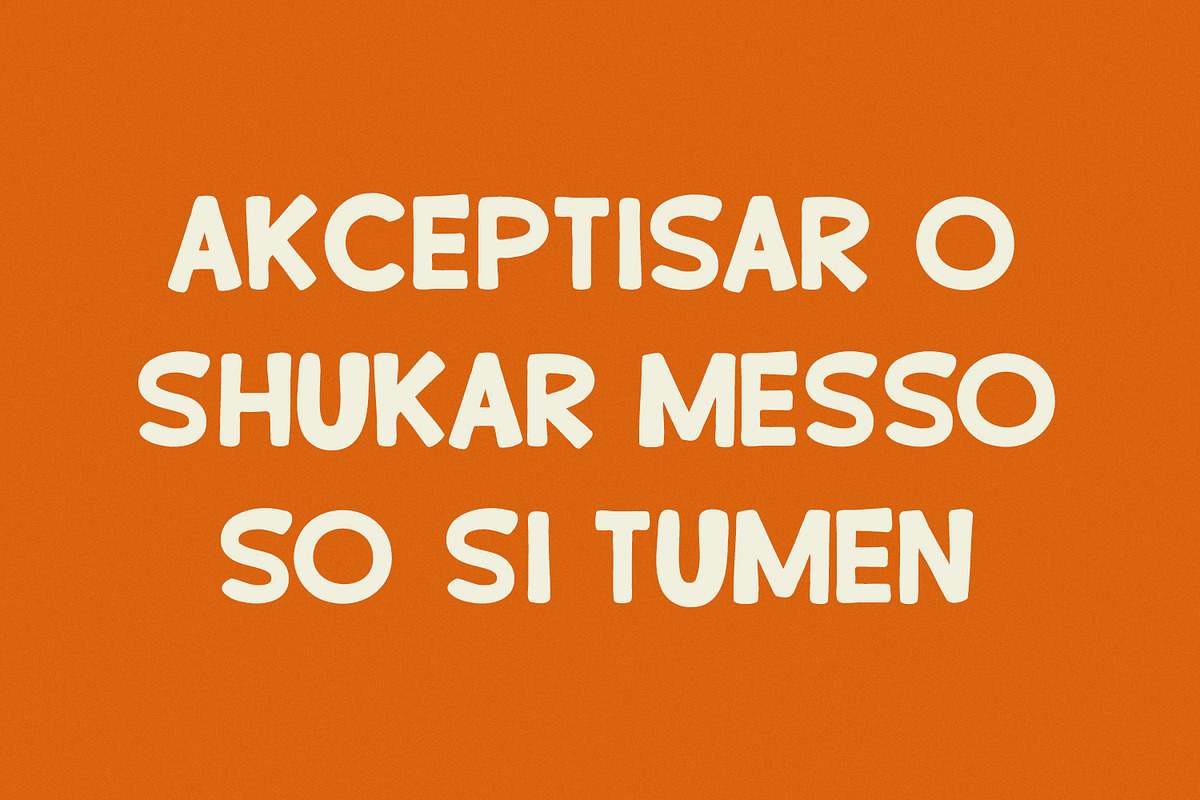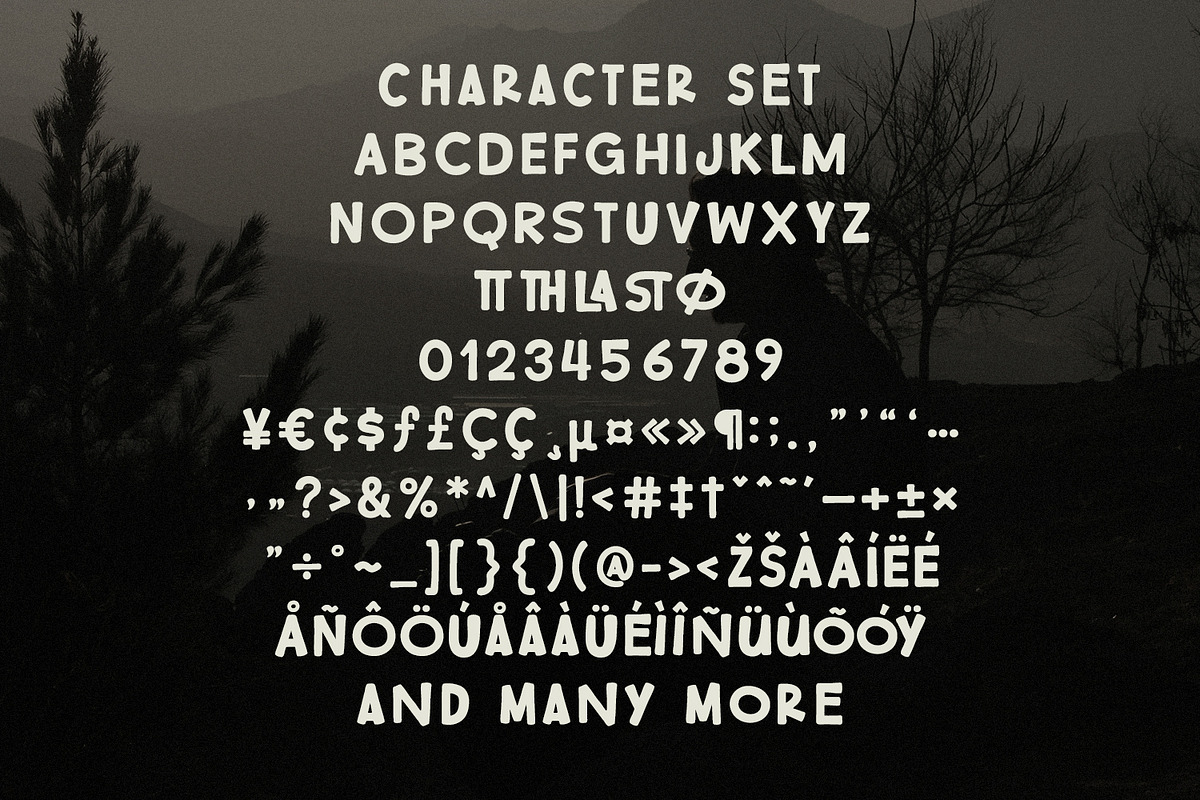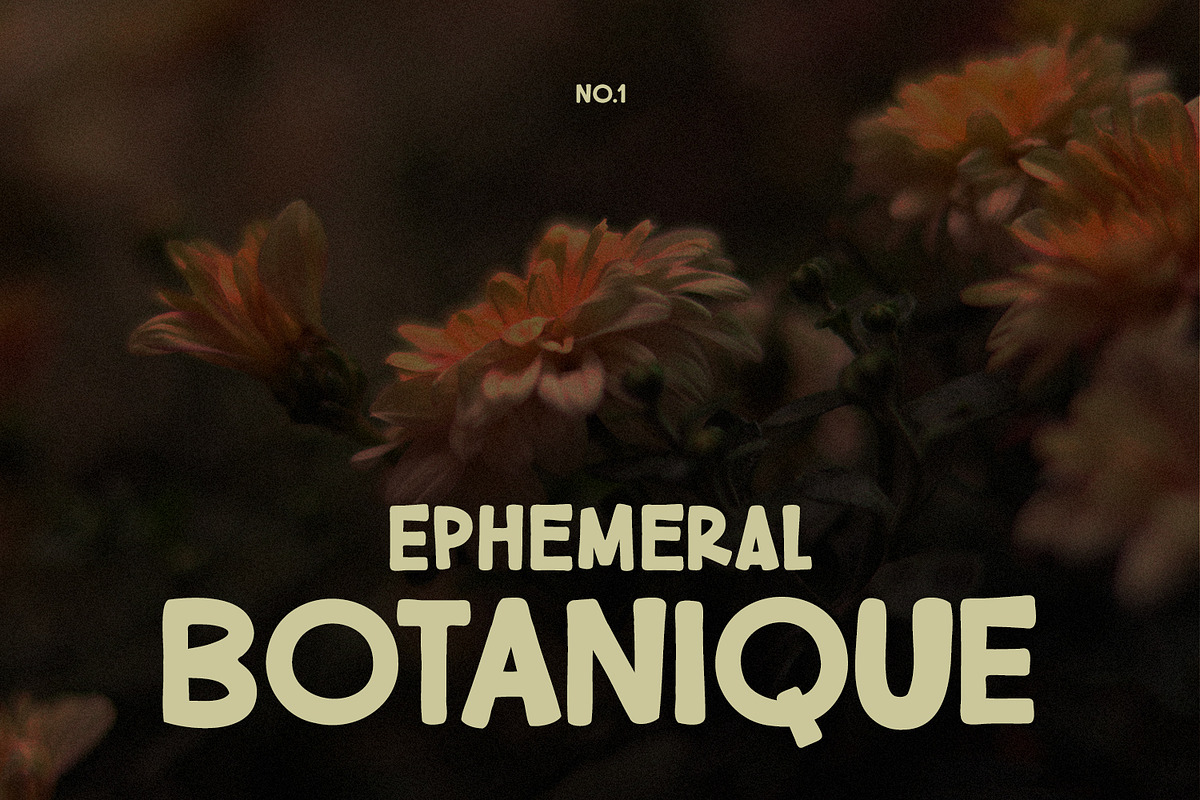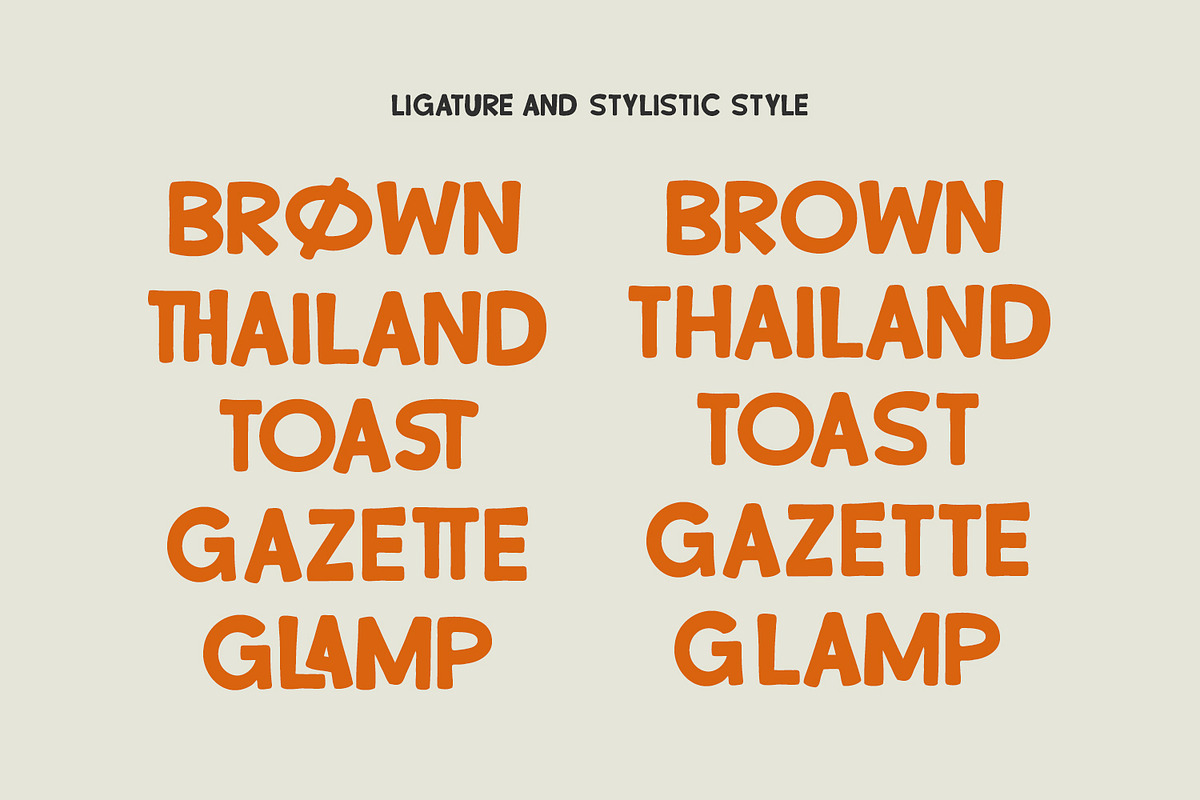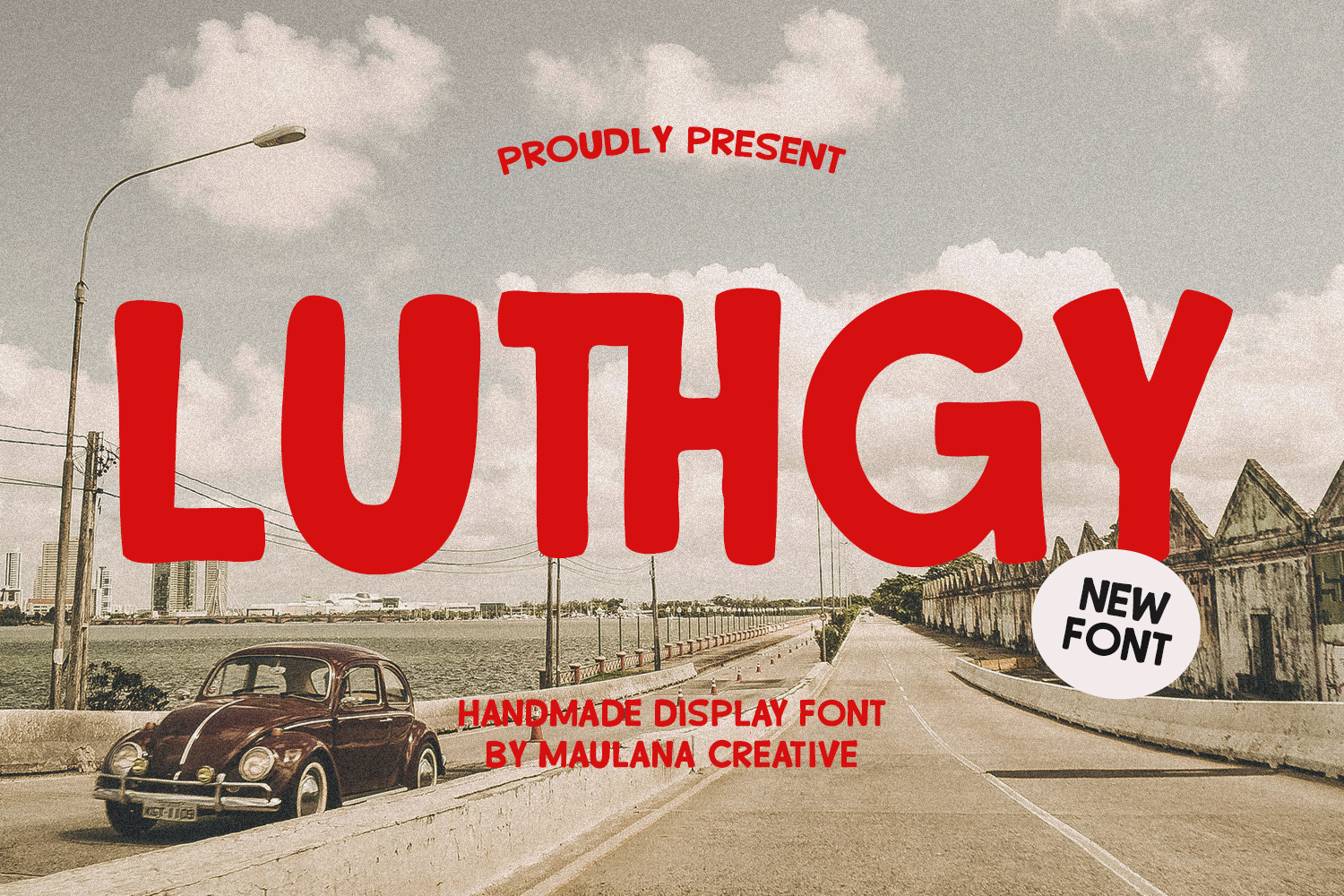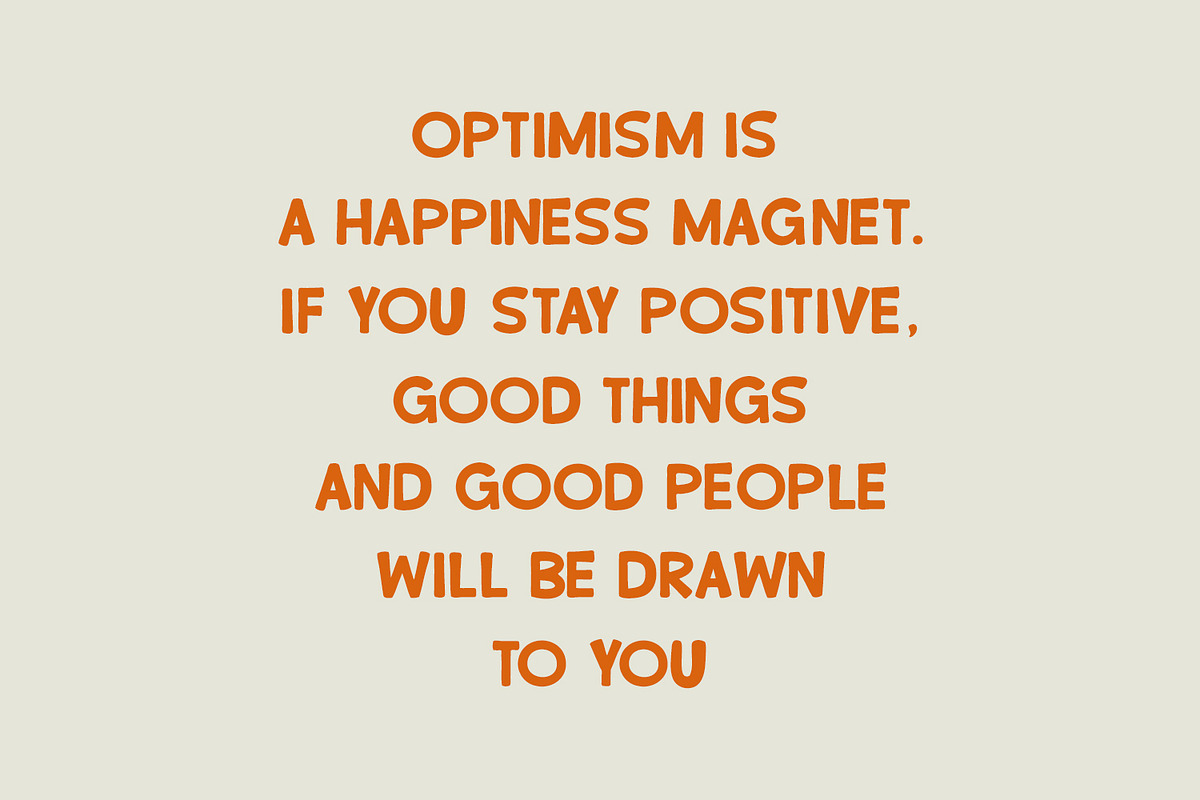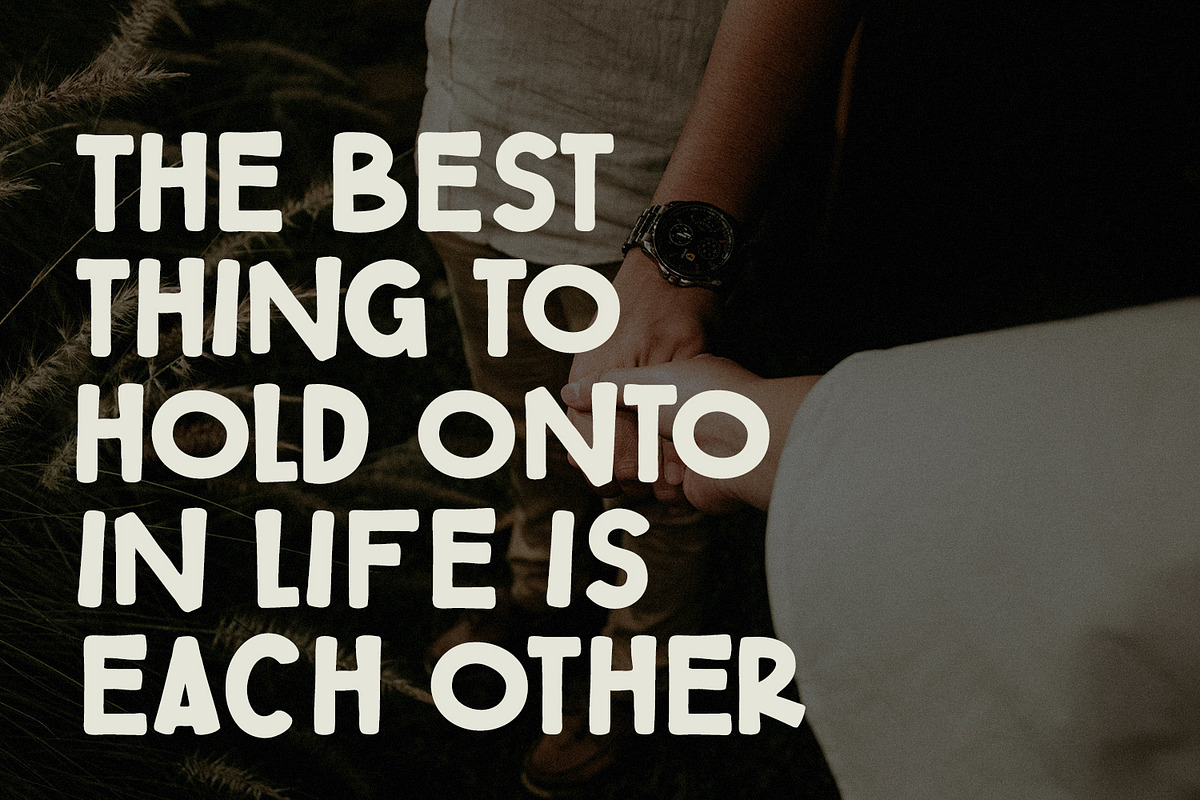
Luthgy Handmade Display Font
Luthgy is a handmade sans display font. Fun character with a bit of ligatures and alternate. To give you an extra creative work. Luthgy font support multilingual more than 100+ language. This font is good for logo design, Social media, Movie Titles, Books Titles, a short text even a long text letter and good for your secondary text font with sans or serif. Make a stunning work with Luthgy font.